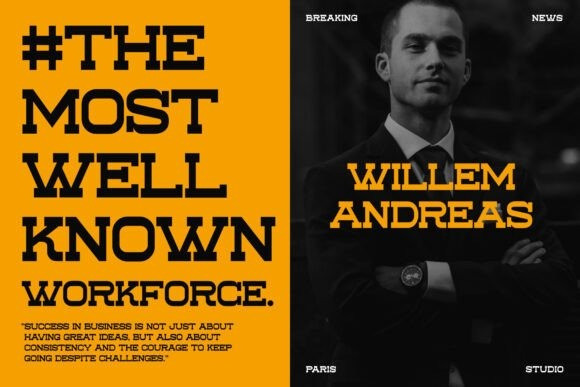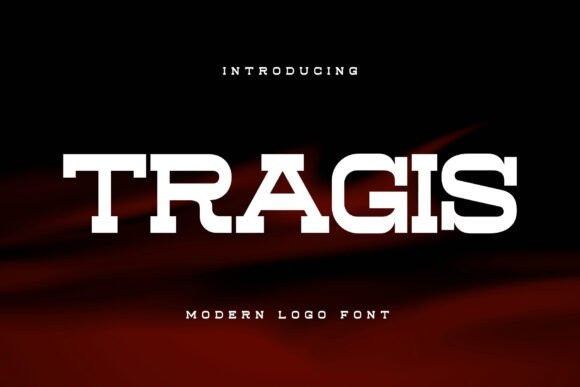
Tragis Font
Tragis Font – This fresh serif display font is meticulously crafted for headlines, titles, and any typographic needs that demand a striking style. It’s ideal for emphasizing your design and drawing attention to important headlines. With its futuristic and modern vibe, this font is perfect for projects focused on communicating your core message.